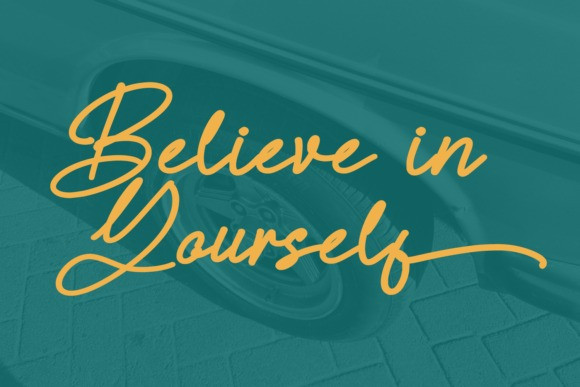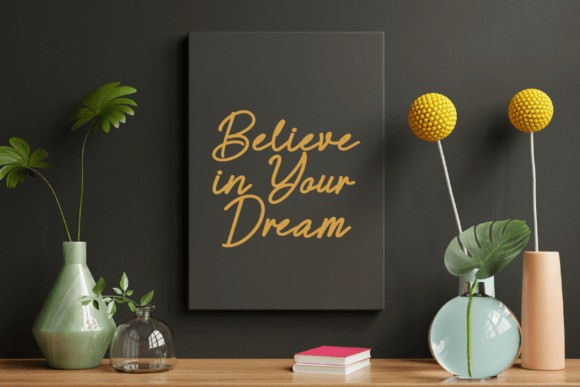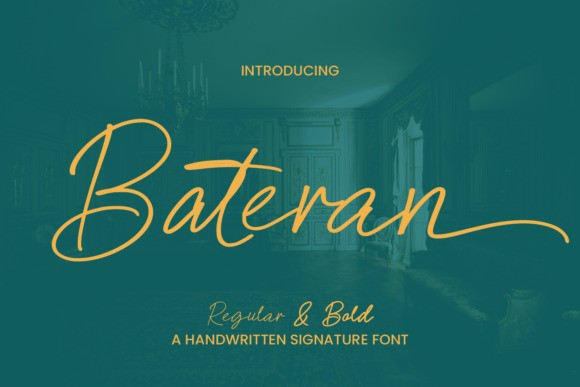
Bateran Font
Bateran Font is an elegant signature-style font. With graceful strokes and refined curves, this font adds a touch of luxury to any design. Perfect for logos, branding, and upscale projects, Bateran exudes effortless charm and sophistication.